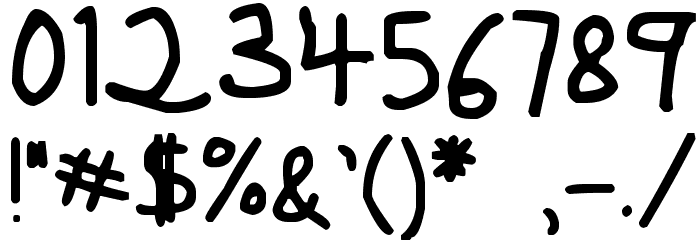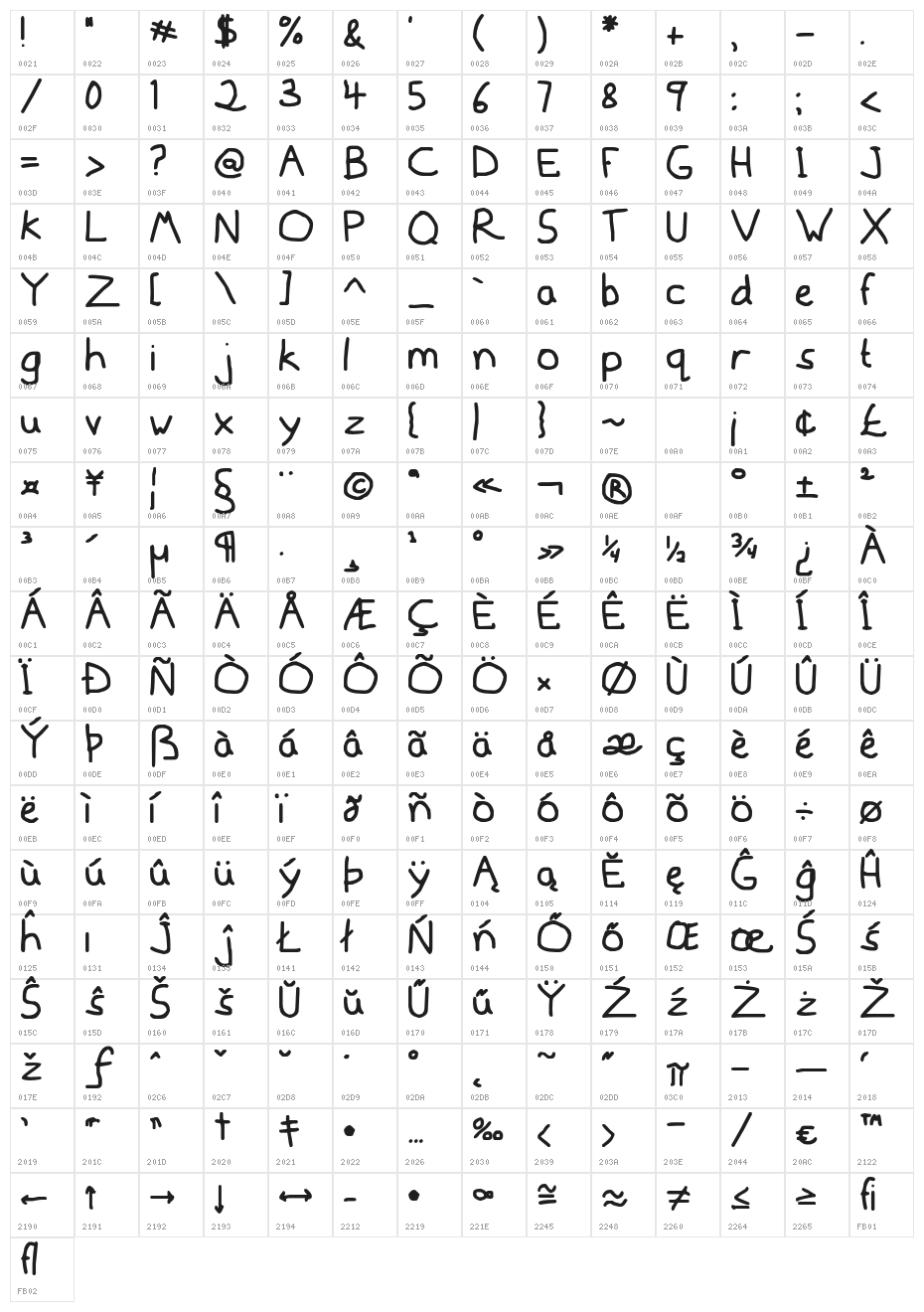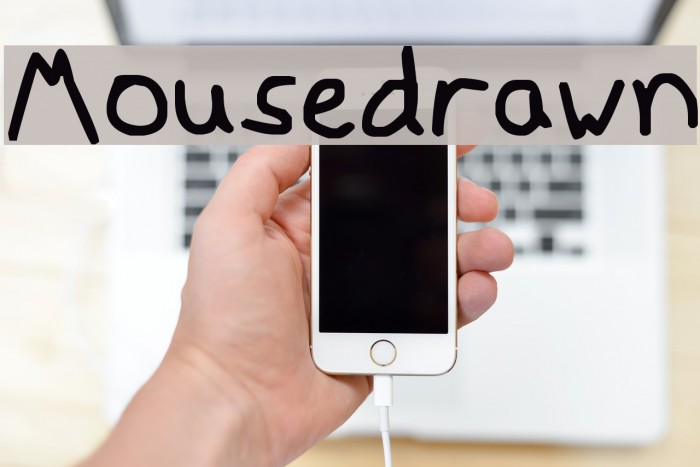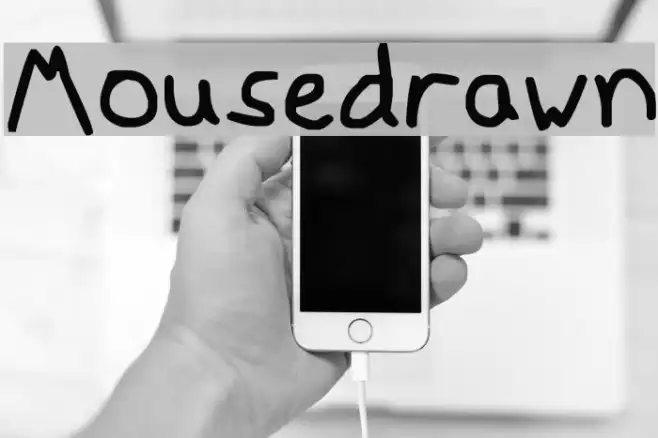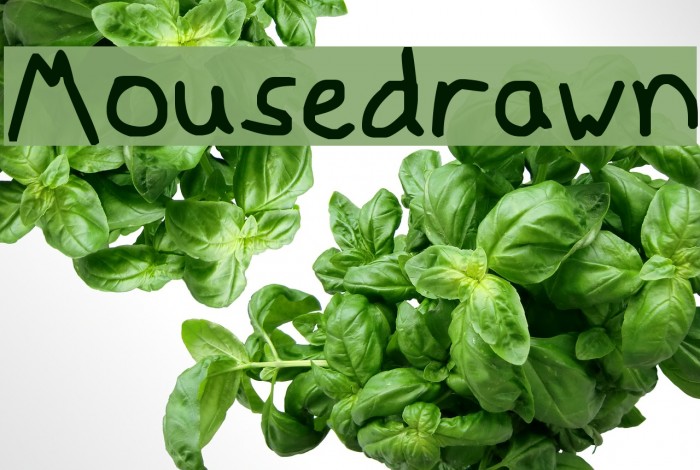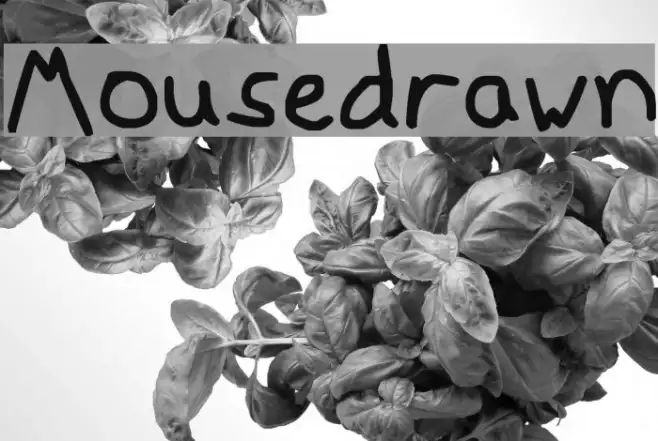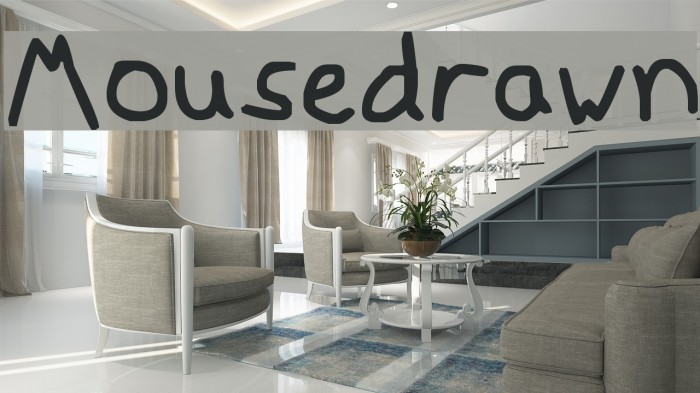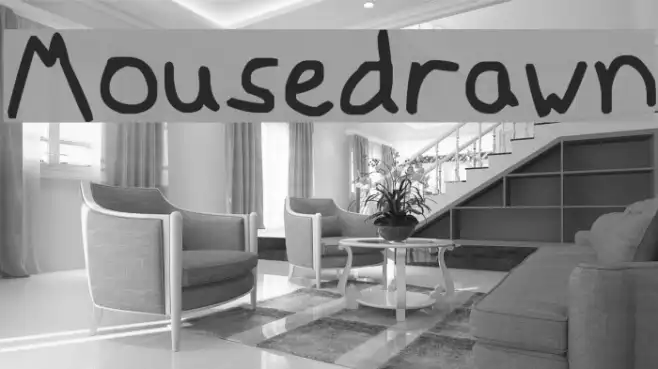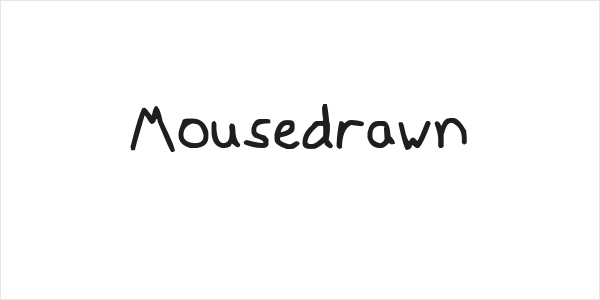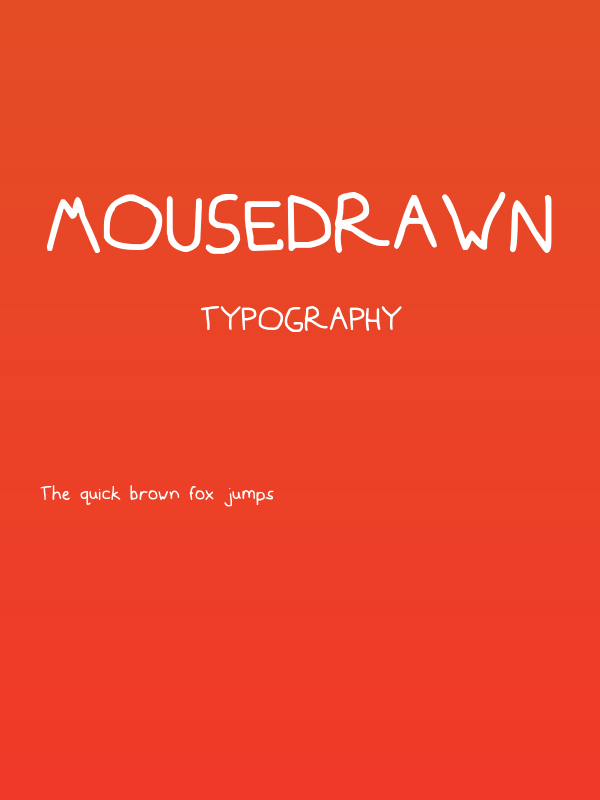
Mousedrawn Font
Mousedrawn Description
This font exhibits a playful and informal style, reminiscent of hand-drawn or doodled text. The characters are unevenly shaped, with a casual and relaxed appearance, suggesting a personal touch. The strokes are consistent in thickness, giving it a uniform look despite the irregularities in the letterforms. The font includes a full set of uppercase and lowercase letters, numbers, and a variety of special characters. Its whimsical nature makes it suitable for creative and informal projects, where a sense of fun and individuality is desired.
| Proposed Projects | Ideal for children's books, comic strips, greeting cards, and playful branding. |